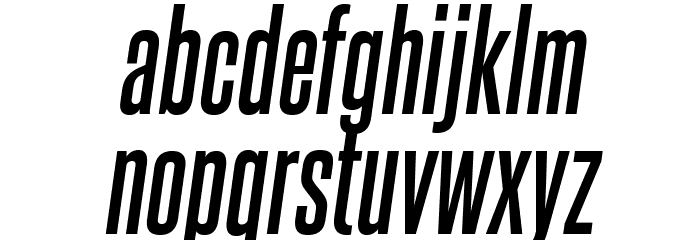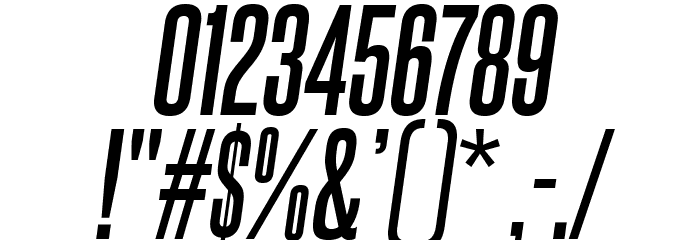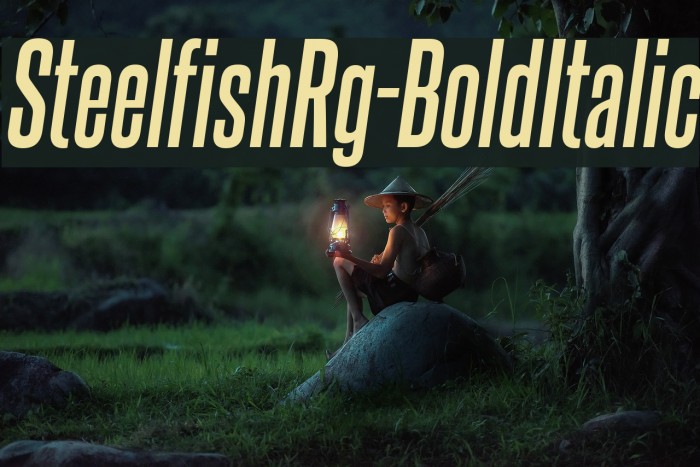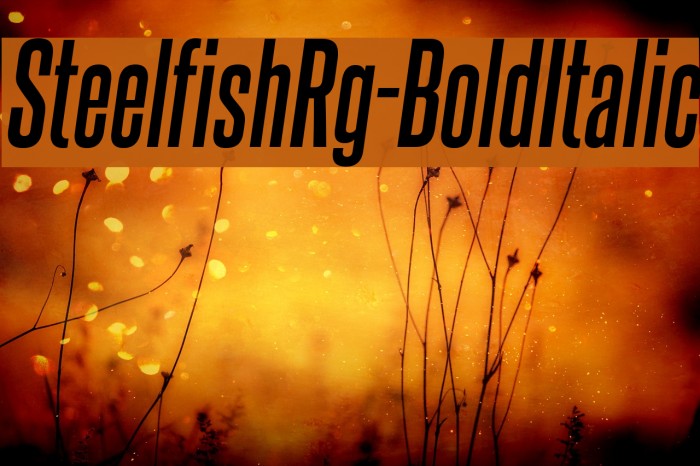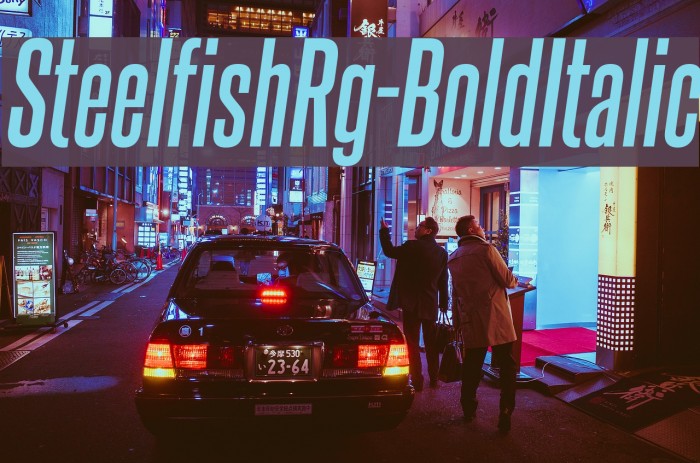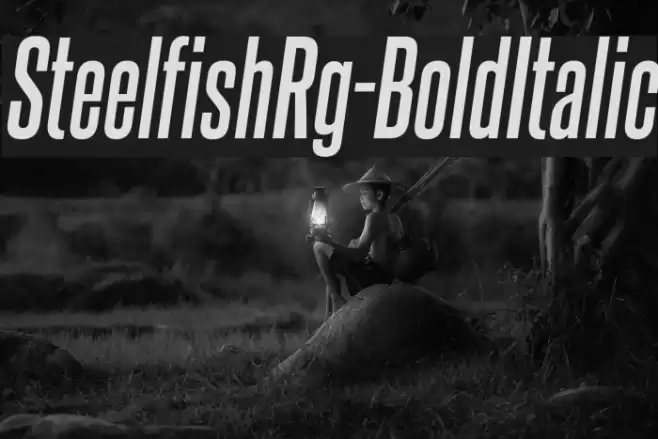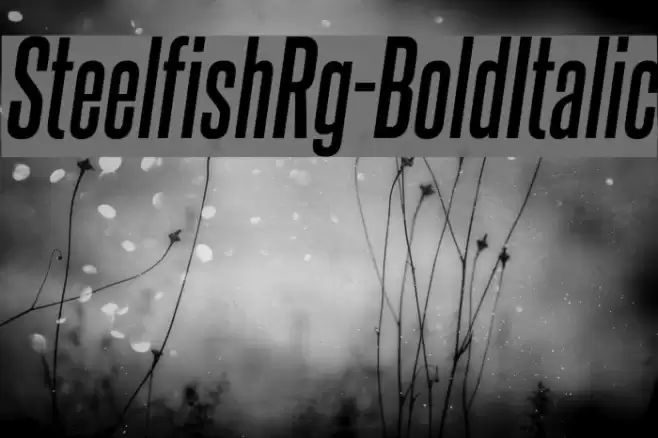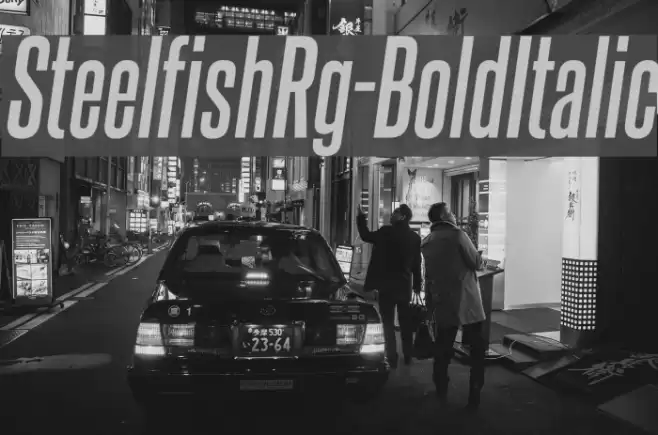
SteelfishRg-BoldItalic Font
This font exhibits a bold and italicized style, characterized by its tall, narrow letterforms and strong vertical emphasis. The uppercase letters are particularly elongated, giving a sense of height and elegance. The lowercase letters maintain a consistent style, complementing the uppercase with their sleek and streamlined appearance. Numbers and special characters follow the same design principles, ensuring uniformity across all glyphs. The font's overall aesthetic is modern and dynamic, making it suitable for attention-grabbing headlines and impactful designs. Its condensed nature allows for efficient use of space, while the italic slant adds a sense of motion and urgency.
A bold, italicized font with tall, narrow letterforms and a modern, dynamic style.
- Proposed Projects: Ideal for headlines, posters, branding, and any design requiring a strong visual impact.
- Character Spacing: Tight